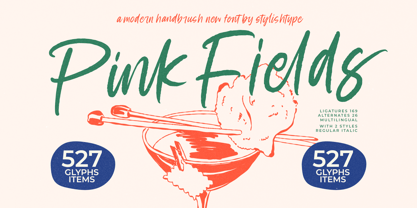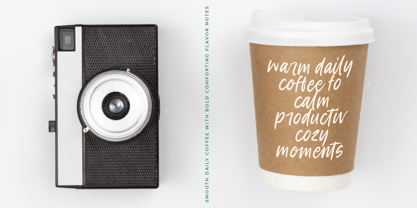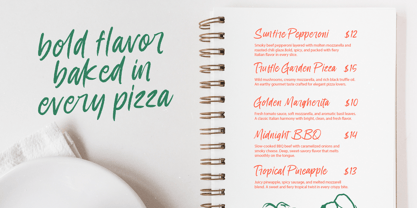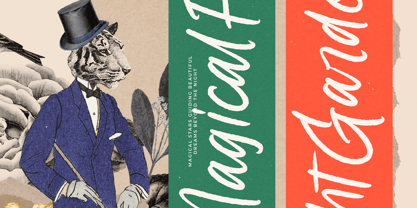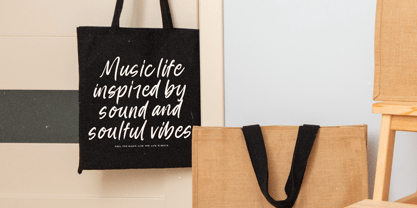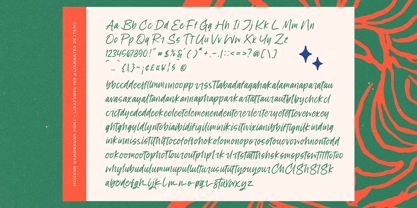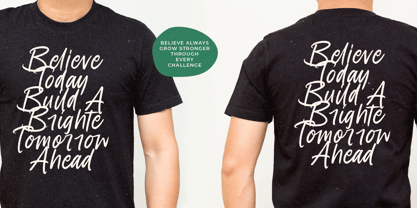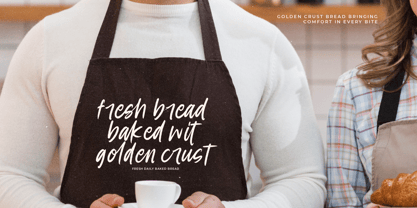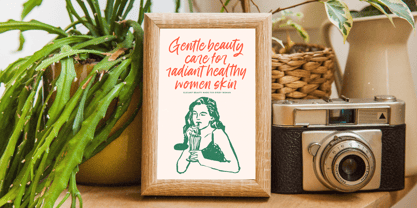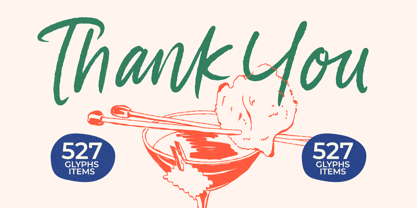
Pink Fields
by Stylishtype Studio
The Pink Fields Font Family was designed by Heru Utama Putra and published by Stylishtype Studio. Pink Fields contains 2 styles and family package options. More about this family
Pink Fields is a modern handbrush script font with an expressive, organic flow that brings a fresh handmade energy to any design. Its rough brush textures and dynamic curves make it perfect for branding, packaging, posters, lifestyle quotes, café menus, social media content, and anything that needs an artistic, bold handwritten look. With 169 ligatures, 26 alternates, and multilingual support across 2 styles (Regular & Italic), Pink Fields offers both versatility and personality—making every word feel alive, vibrant, and authentically crafted.